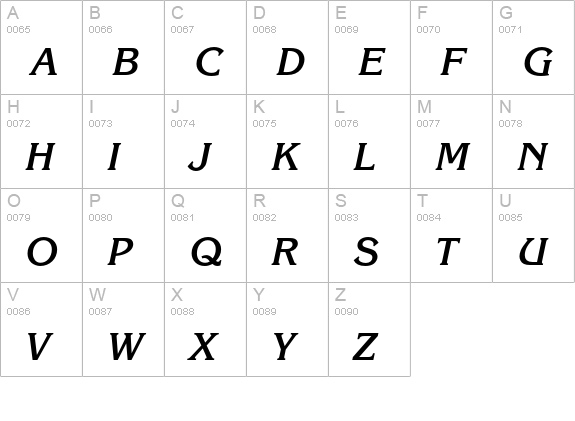
KorinnaEF-KursivBold is a stunning and elegant typeface that exudes sophistication and style. With its bold yet graceful curves and unique letterforms, this font is perfect for adding a touch of luxury to any design project. Whether you're creating invitations, branding materials, or editorial layouts, KorinnaEF-KursivBold is sure to make a statement. What's even better is that this exquisite font is available for free download at FontsMarket.com. This means you can easily access this premium typeface without any cost, making it a valuable addition to your font collection. Don't miss out on the opportunity to elevate your designs with the timeless beauty of KorinnaEF-KursivBold. Download it today and unleash your creativity like never before.